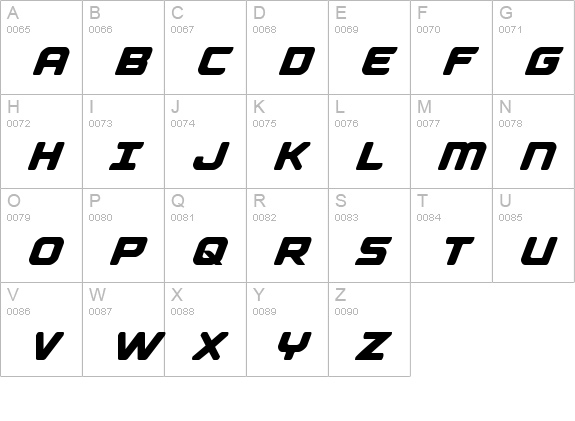
Falcon Punch Font Details
Falcon Punch is a donationware font in the Modern > Techno category, designed by Iconian. It has been downloaded 185 times and is available for Windows, Mac and Linux.
Falcon Punch font is a bold and dynamic typeface that packs a powerful punch with its sharp angles and strong presence. This font exudes strength and confidence, making it perfect for headlines, titles, and logos that demand attention. With its sleek and modern design, Falcon Punch font will add a touch of boldness to any design project.